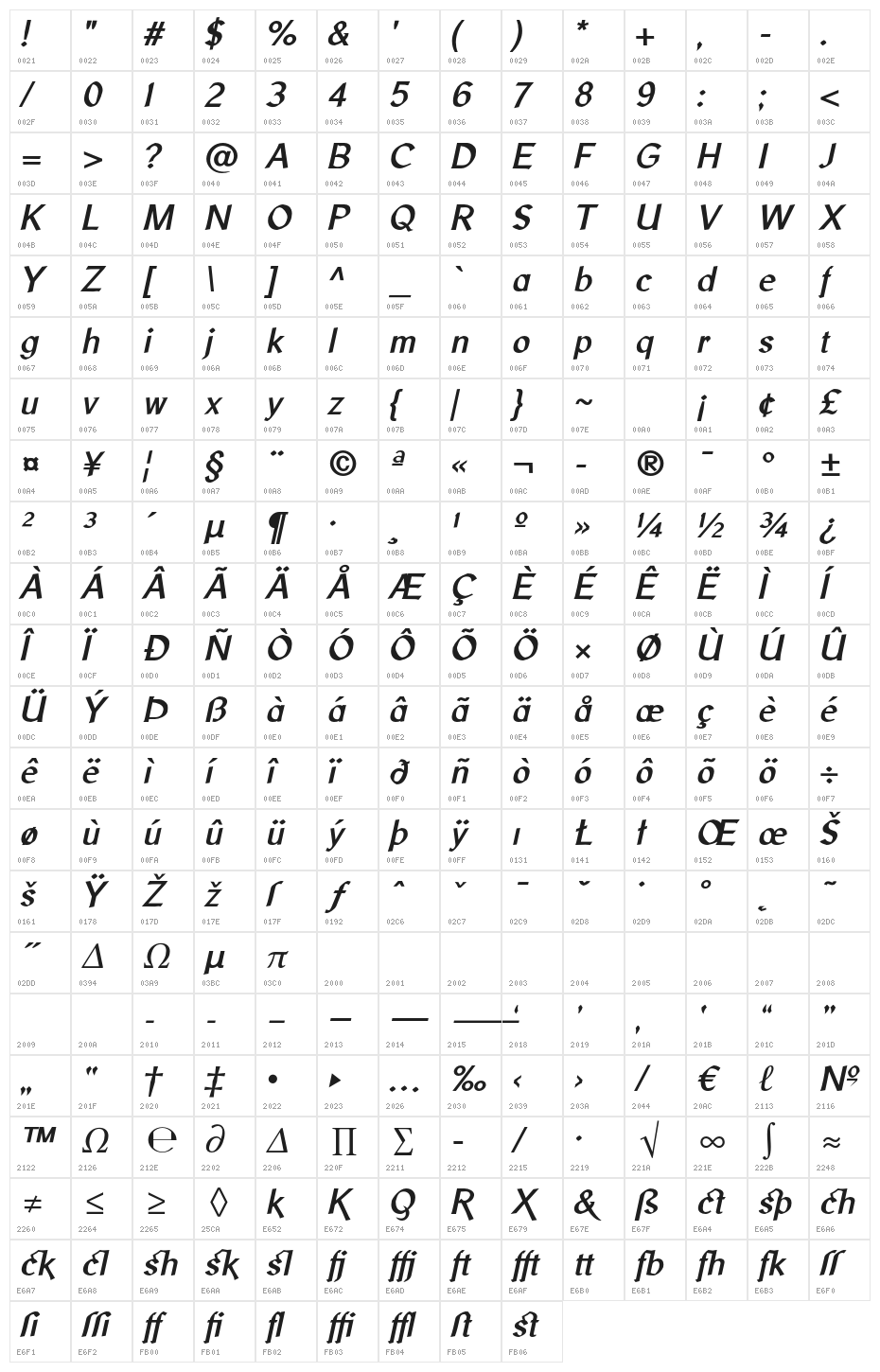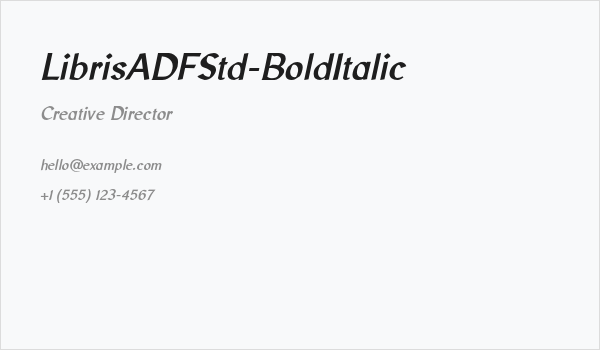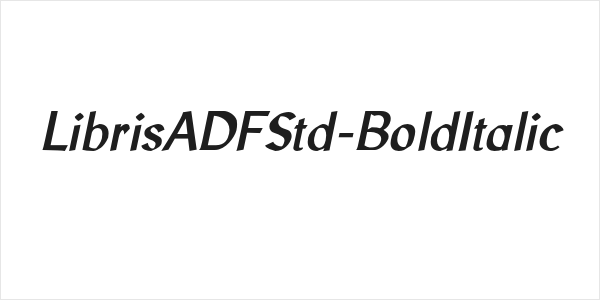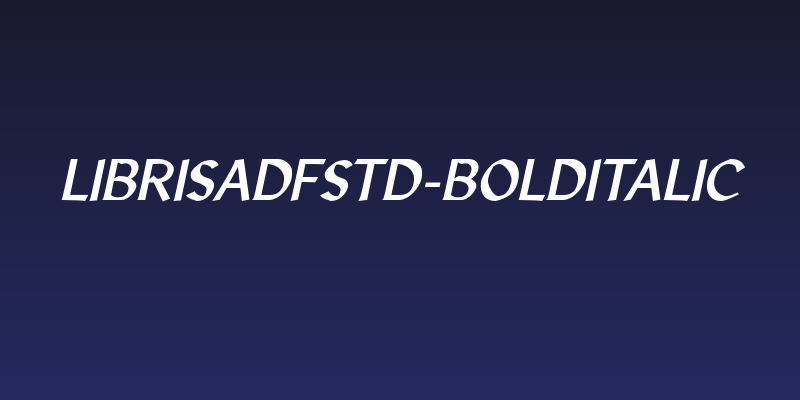
LibrisADFStd-BoldItalic Font
LibrisADFStd-BoldItalic Description
This font exhibits a bold and italicized style, characterized by its dynamic slant and strong presence. The uppercase letters are slightly condensed, giving a modern and sleek appearance. The lowercase letters maintain a consistent italic angle, enhancing readability while adding a touch of elegance. The numerals are distinct and clear, with a uniform weight that complements the alphabetic characters. Special characters are well-defined, maintaining the font's cohesive style. Overall, the font combines boldness with a sophisticated italic flair, making it suitable for impactful and stylish text presentations.
Use CaseHeadlines, Logos, Branding
Proposed ProjectsIdeal for branding, advertising, and editorial design where a strong and elegant impression is needed.